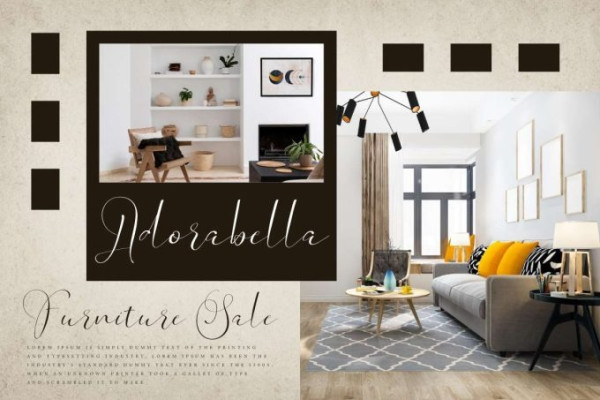
Sunday Afternoon Script Font
Sunday Afternoon Script Font, is a beautiful script calligraphy font with a radiance of elegance. Classy typography created by the amazing hand that makes it feel authentic which will add to the visual beauty of your designs, such as brand logo, brochure, catalog, cover, greeting card, invitation, label, mockup design, packaging design, quote, screen print, sheet menu, signage, stationery, sticker, title, website, and many more!
Sunday Afternoon Font comes with a full set of Uppercase and Lowercase Basic Characters, Number, Punctuation, Symbol. Also with the addition of a Ligature and Swoosh characters to bind perfectly and bring aesthetic value to the font. Use this for your business industry such clothing brand, event organizer, fashion designer, florist, furniture, handicraft, hotel, perfumer, pottery, printing, publishing, real estate, restaurant, skincare, spa salon, wedding, etc.